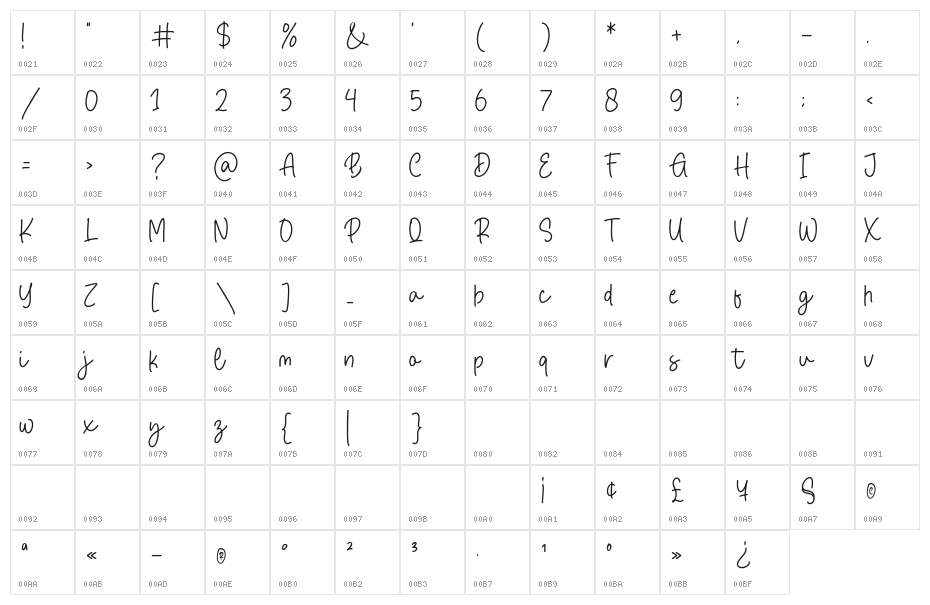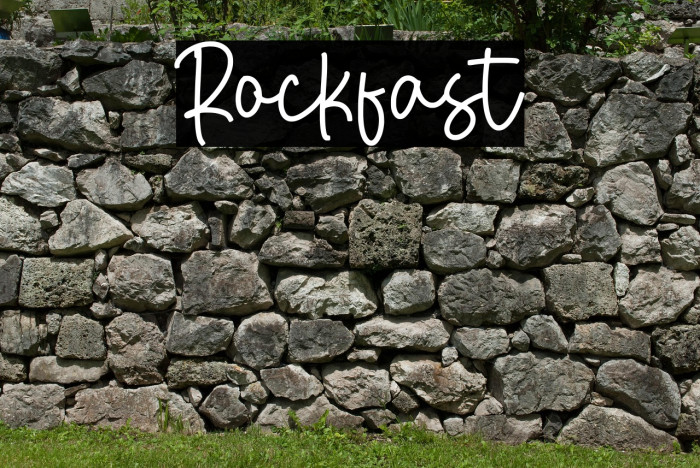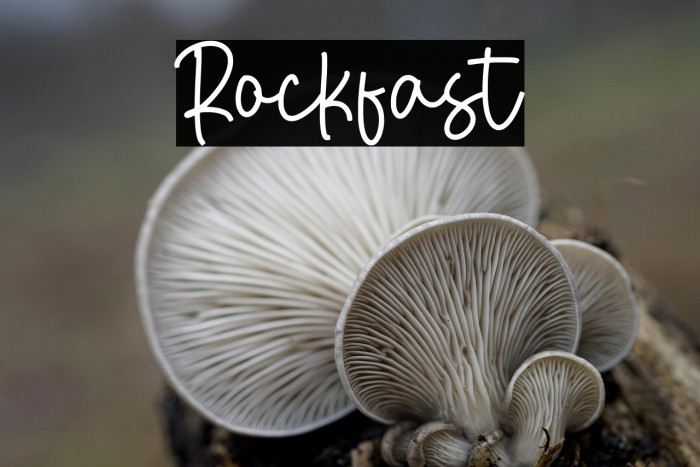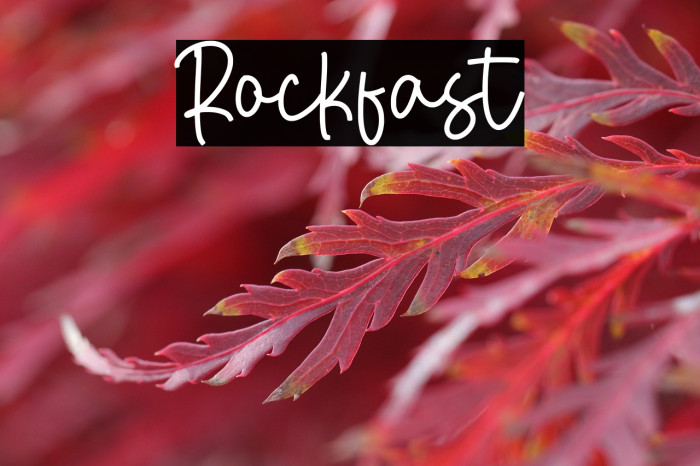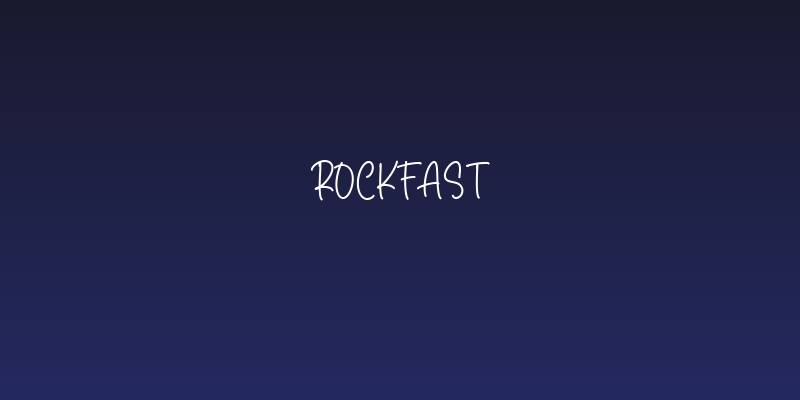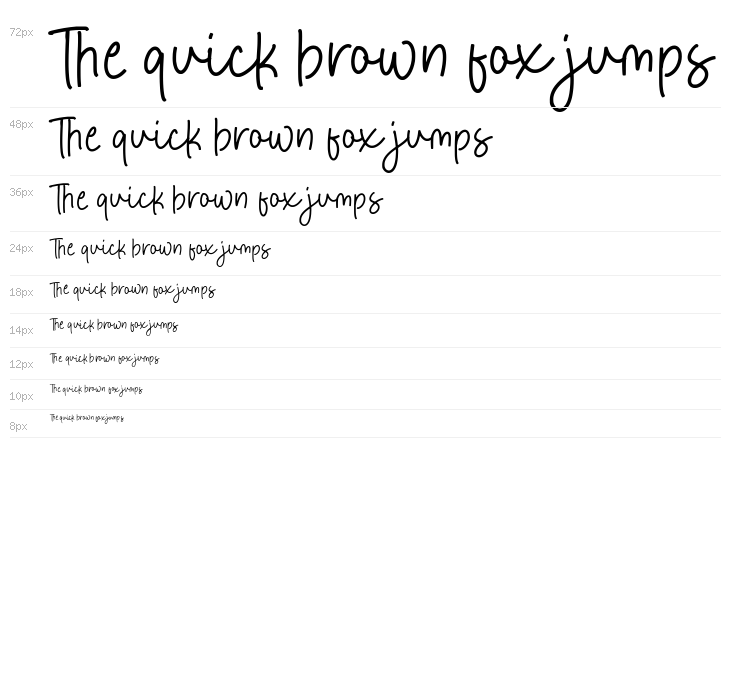
Rockfast Font
Rockfast Description
This font features a playful and casual handwritten style, characterized by its smooth, flowing lines and slightly irregular shapes. The uppercase letters are tall and slightly narrow, with a whimsical touch that adds personality. Lowercase letters maintain a consistent flow, enhancing the font's informal and approachable feel. The numerals are clear and easy to read, matching the overall style. Special characters are integrated seamlessly, maintaining the font's cohesive look. This font is perfect for projects that require a personal and friendly touch.
| Overall Style | Casual |
| Use Case | Logos, Headlines, Informal text |
| Proposed Projects | Ideal for greeting cards, personal branding, social media graphics, and informal invitations. |